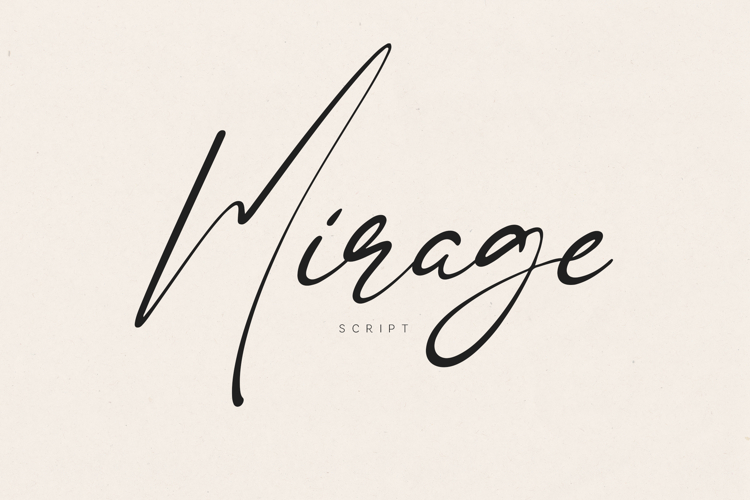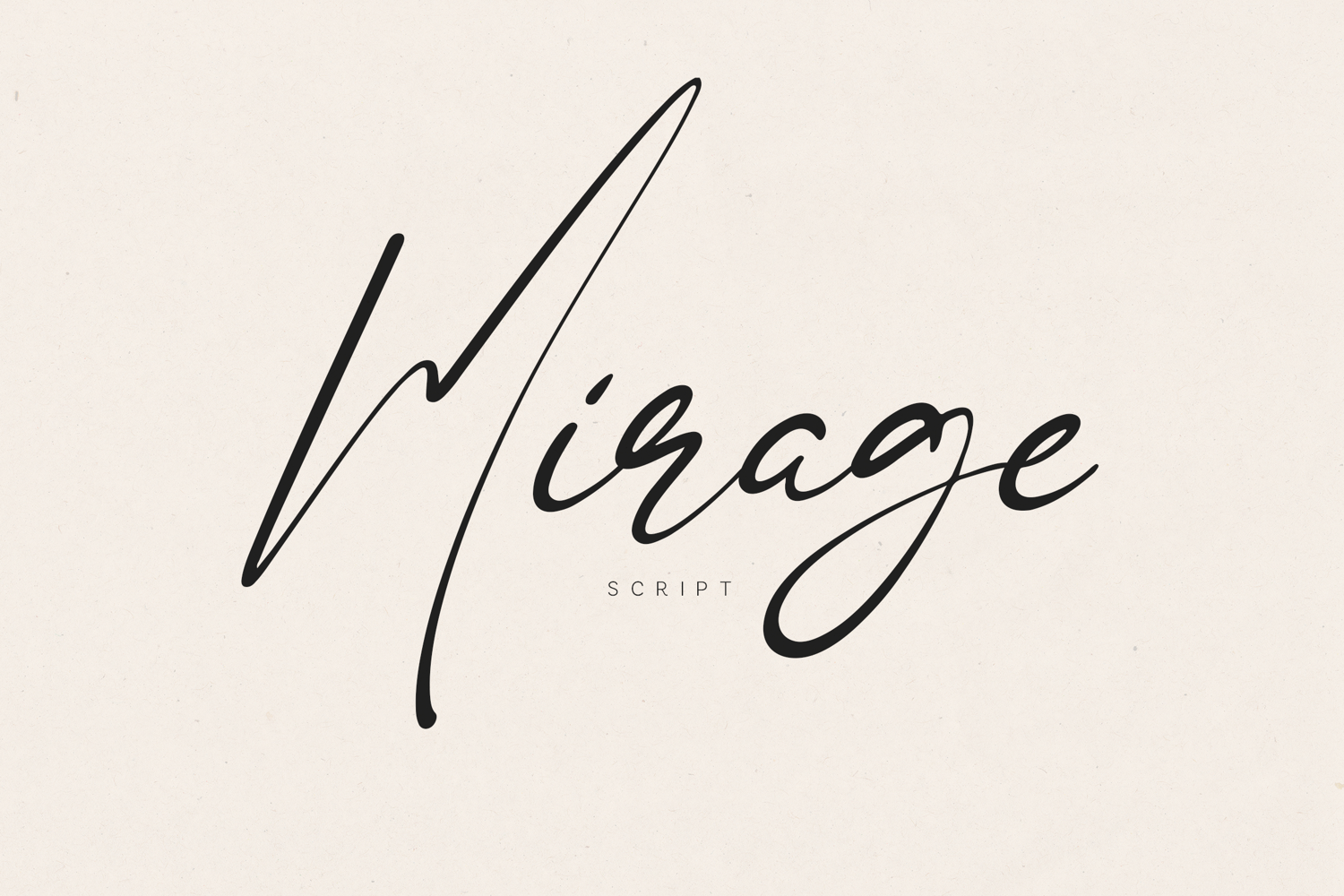
Mirage Elegant Signature Script Font
Mirage is an elegant signature-style script font designed to capture the feeling of natural handwriting with a refined and modern touch. With its smooth strokes, flowing connections, and expressive curves, it delivers a sophisticated and typographic style.
The letterforms are carefully crafted to feel fluid and effortless, mimicking real pen movement while maintaining balance and readability. Subtle variations in stroke weight create a natural rhythm, giving the font an authentic handwritten character.
Mirage blends minimalism with elegance, making it perfect for designs that require a premium aesthetic.
The font includes uppercase, lowercase, numerals, punctuation, symbols, and multilingual support, allowing you to create expressive and international-ready designs.
With its elegant flow and modern handwritten feel, Mirage brings personality, warmth, and sophistication into every design.